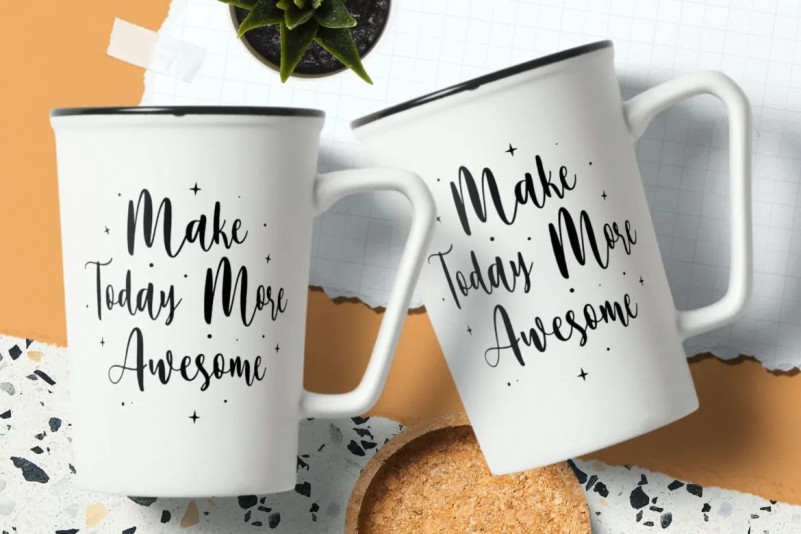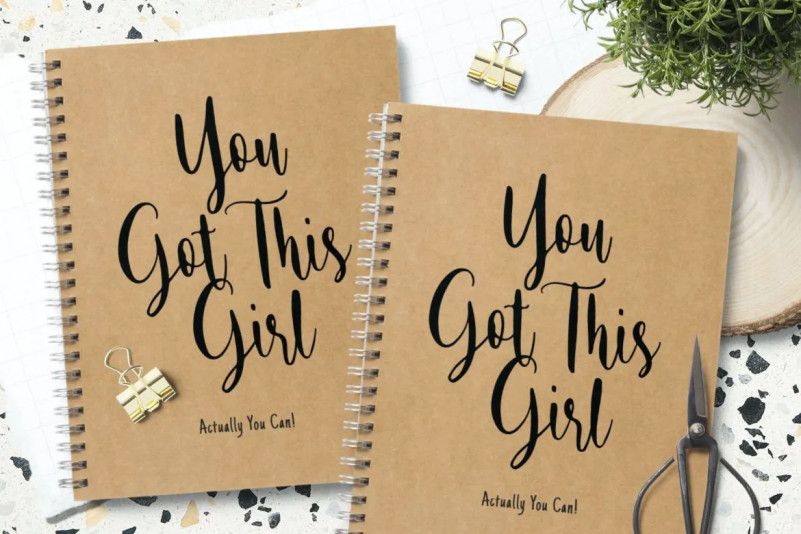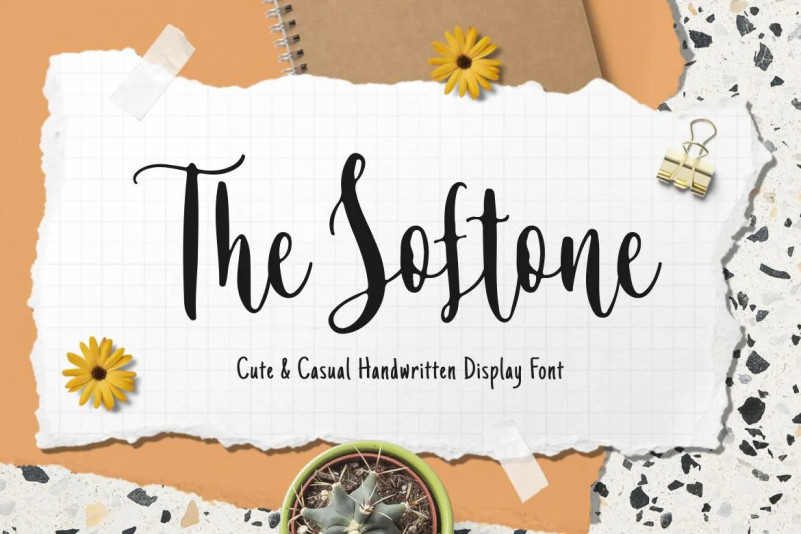
The Softone Font
Introducing Audrey, a cute and casual, but slightly edgy and fun handwritten script font. This font stands perfectly on its own for Logos and Quotes. This font also perfect for Branding, Greeting Cards, Wedding Stationery, and crafting.